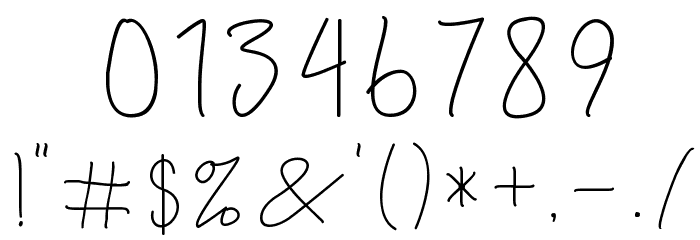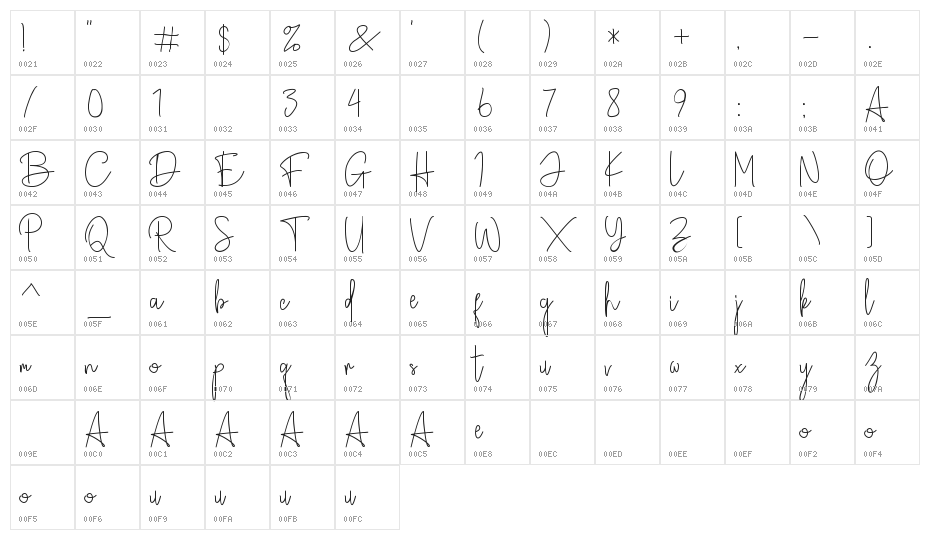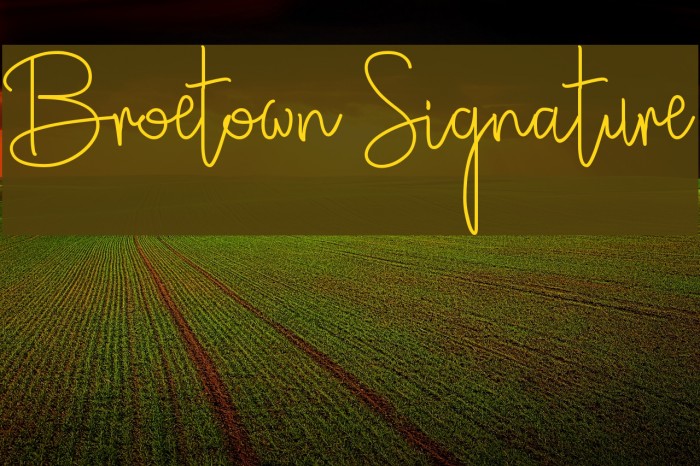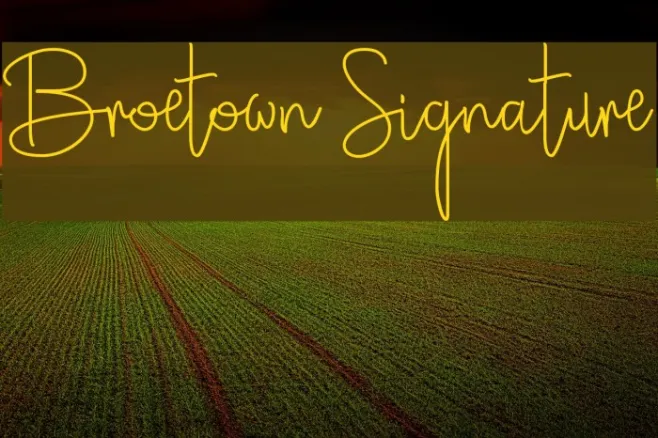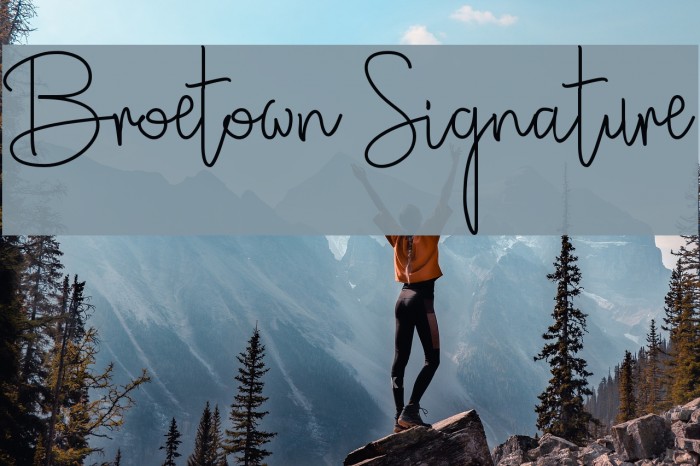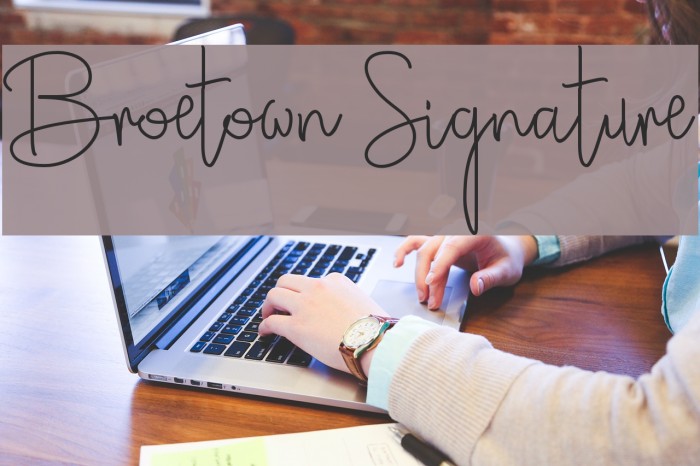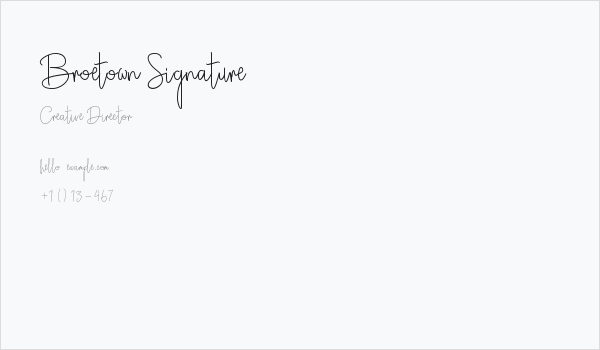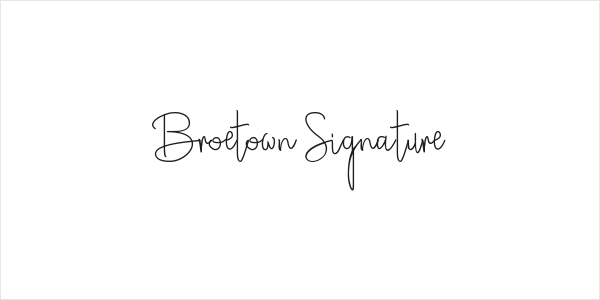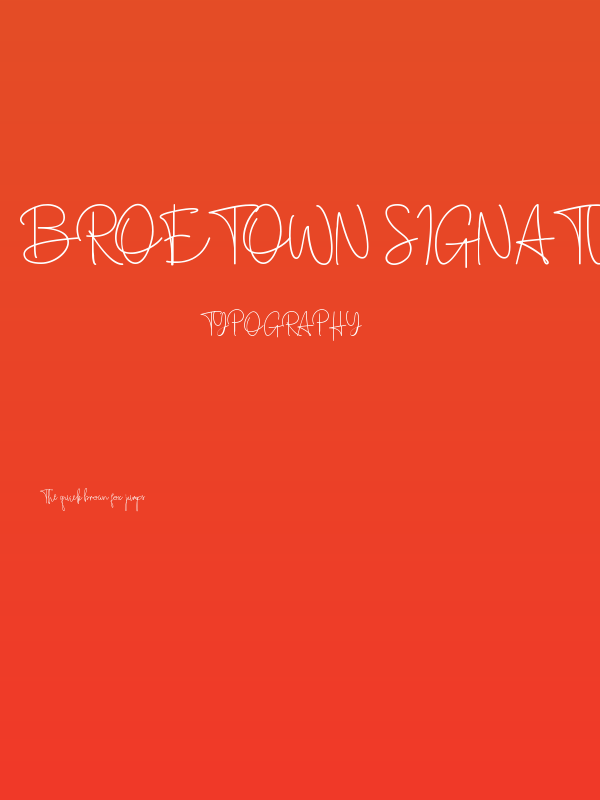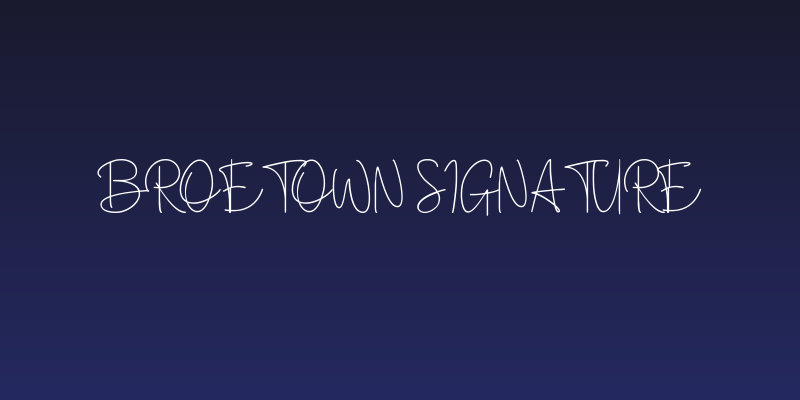
Broetown Signature Font
Broetown Signature Description
This font features a distinctive handwritten style with a flowing, cursive appearance. The uppercase letters are tall and elegant, with a slight slant that adds a dynamic feel. The lowercase letters are more compact, maintaining the cursive style with smooth, continuous strokes. Numbers are consistent with the overall style, featuring rounded edges and a playful touch. Special characters are integrated seamlessly, maintaining the fluidity and elegance of the font. The overall impression is one of sophistication and creativity, making it suitable for projects that require a personal, artistic touch.